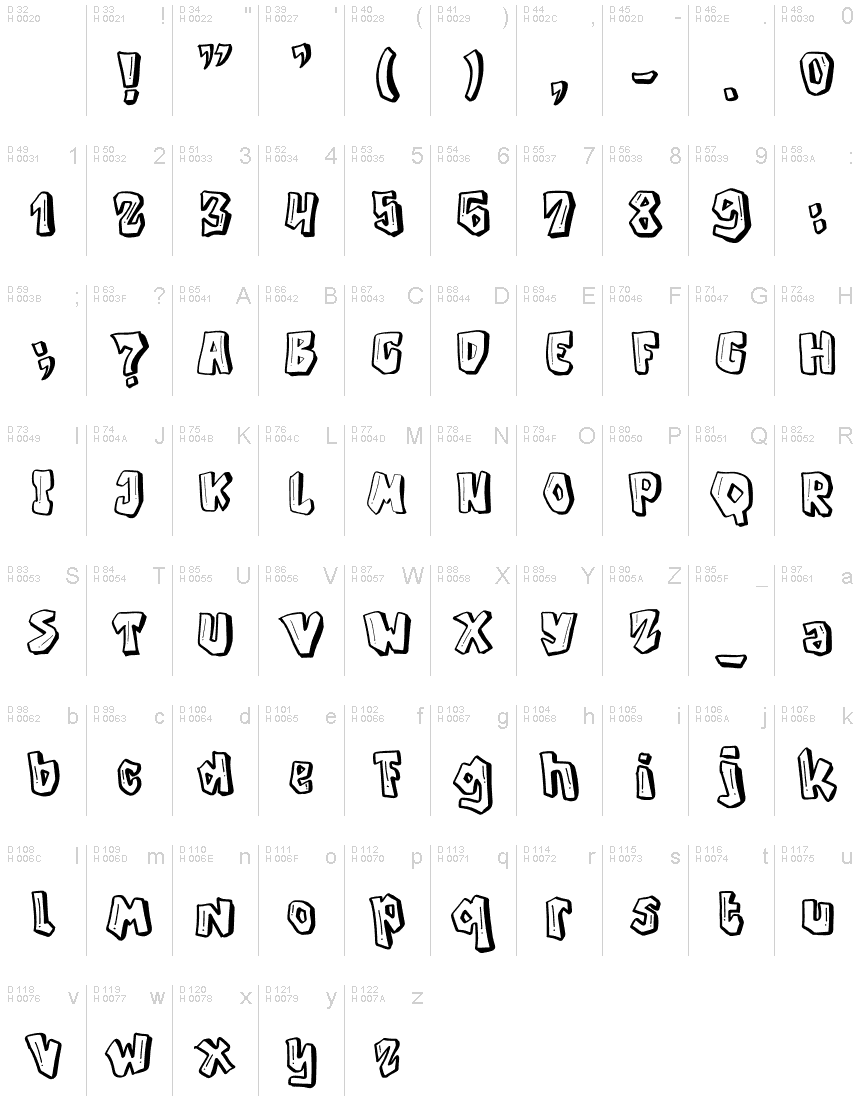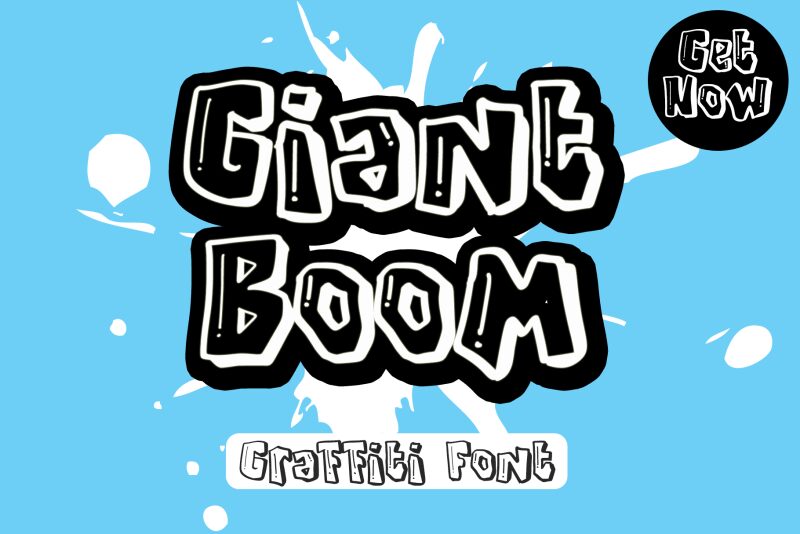
GiantBoomFont Regular
Giant Boom, crafted by Letterafa Studio, is an electrifying graffiti font that breathes life into any project.
Its bold weight brings a punchy intensity to headlines, posters, and logos. With its urban charm and rebellious spirit, Giant Boom is perfect for streetwear brands seeking to make a statement or music festivals looking to capture the essence of raw energy. This versatile font adds an edge to album covers, skateboarding magazines, and even video game titles.
Embrace the vibrant chaos of Giant Boom and let your creativity explode onto the canvas.